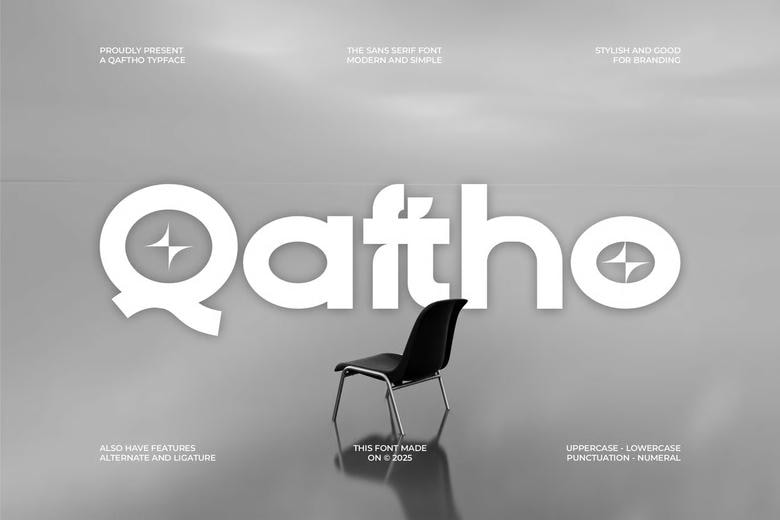
Qaftho Font
Qaftho is a modern bold and sans serif typeface that makes an impact with its bold lines, confident weight and bold simplicity. It is a impactful design which is not compromised in terms of elegance. It can be used in headlines, branding, posters, and digital design because of its geometric form and clean edges, which can be used in any place that requires boldness.
This font reflects power, innovation and enduring modernity, making it perfect to use by modern brands that are in need of strength coupled with style.
Qaftho Sans Serif Font